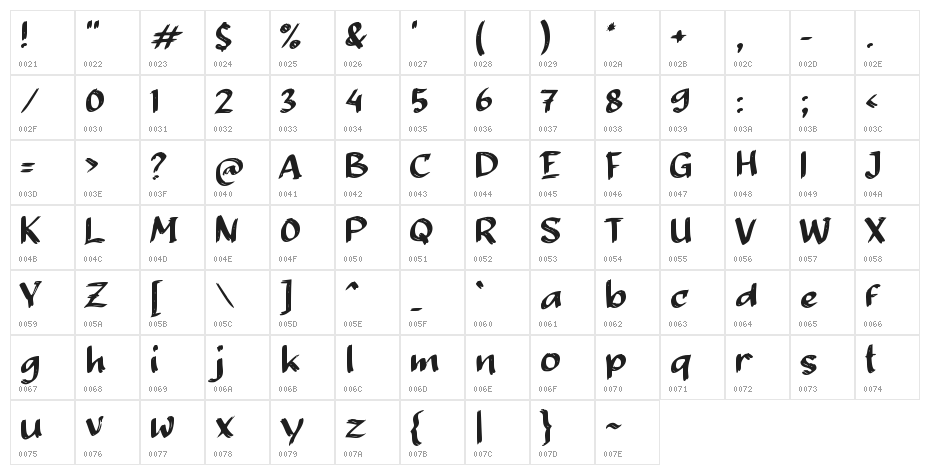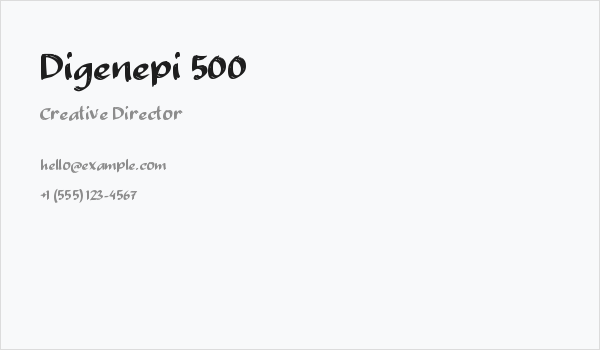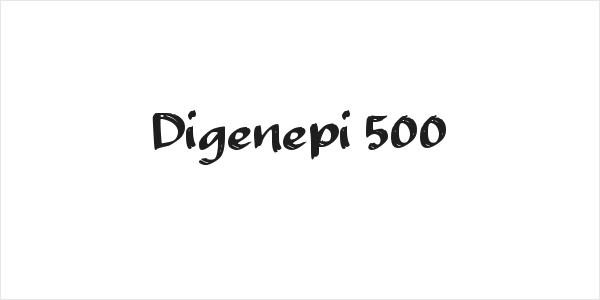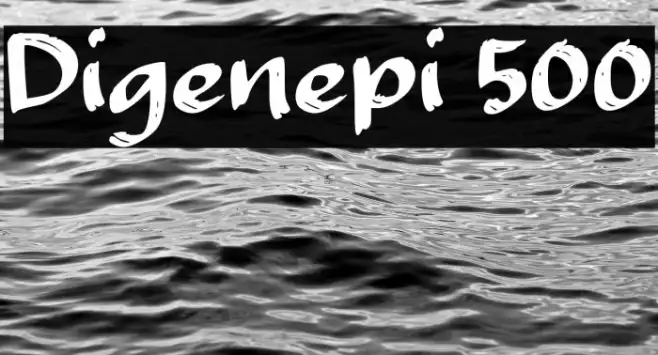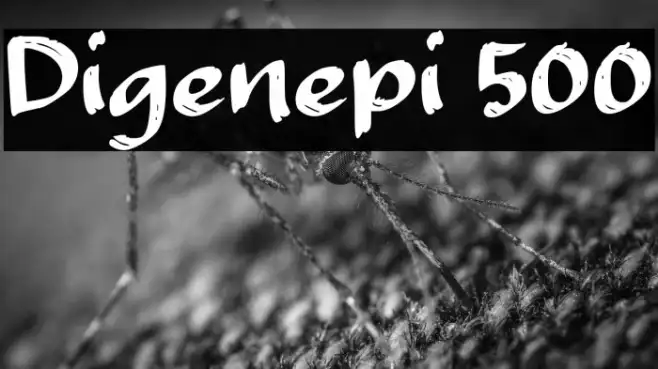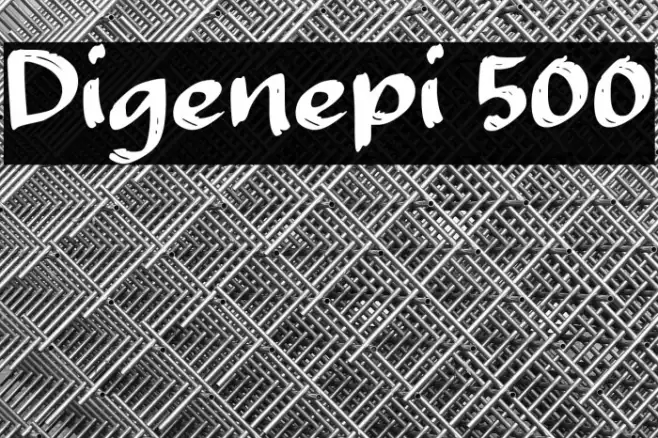
Digenepi 500 Font
Digenepi 500 Description
This font exhibits a bold, expressive style with a brush-like appearance, characterized by dynamic strokes and a sense of movement. The uppercase and lowercase letters maintain a consistent flow, while the numbers and special characters complement the overall aesthetic. The strokes vary in thickness, adding a lively and energetic feel. The design is reminiscent of hand-painted signage, making it suitable for projects that require a personal touch. Its unique style captures attention and conveys creativity and spontaneity.
DIGENEPI-500 UPPERCASE
DIGENEPI-500 LOWERCASE
DIGENEPI-500 OTHER CHARS
| Proposed Projects | Ideal for creative projects such as posters, branding, packaging, and artistic displays where a personal and energetic touch is desired. |